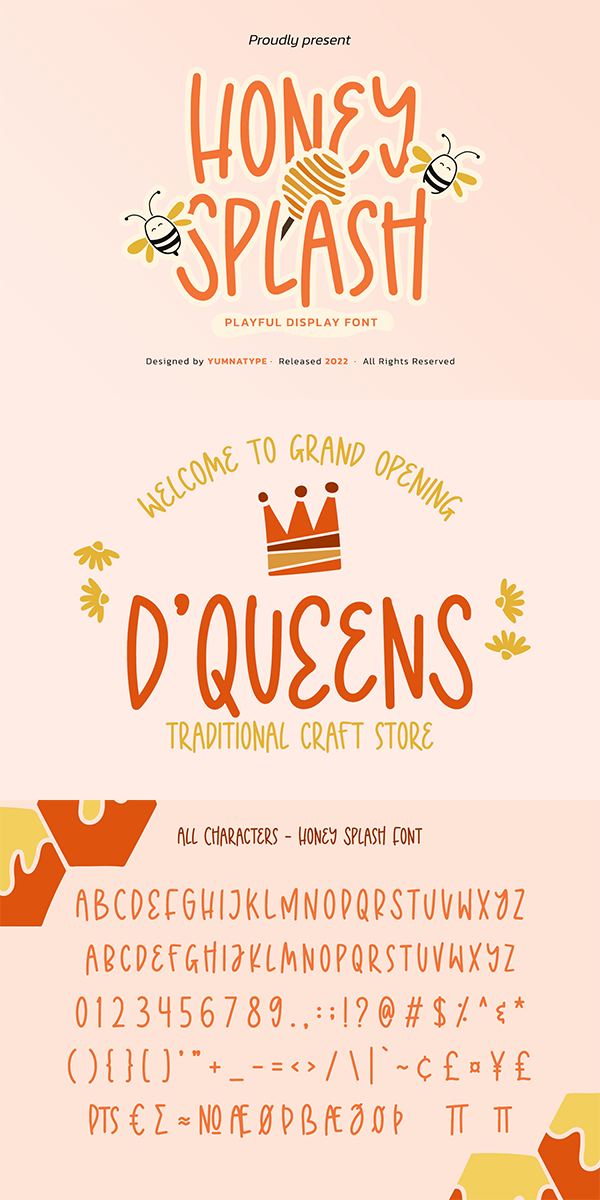
Honey Splash Font
About Honey Splash
Honey Splash is a stylish display font to express unique, fun impressions focusing on various line style combinations in friendly curves. Furthermore, the different shapes and heights makes the font visually unique. In addition, Honey Splash gives you a special bonus called the clipart. Use this font for big text sizes for a legibility reason and make use of the available interesting features to beautify your designs as well.
Honey Splash fits for various design projects, such as posters, banners, logos, magazine covers, quotes, headings, printed products, merchandise, social media, etc. Find out more ways to use this font by taking a look at the font preview.